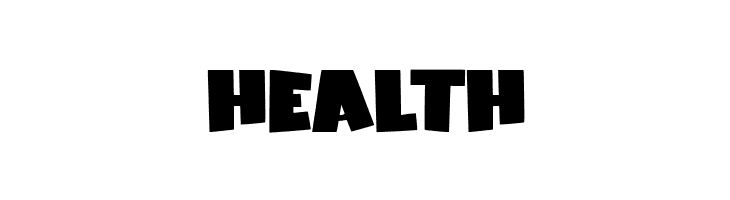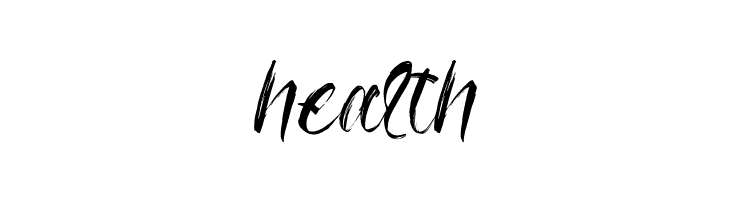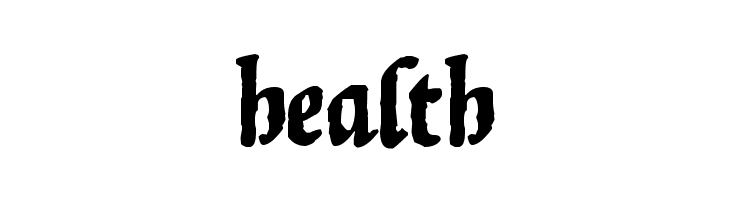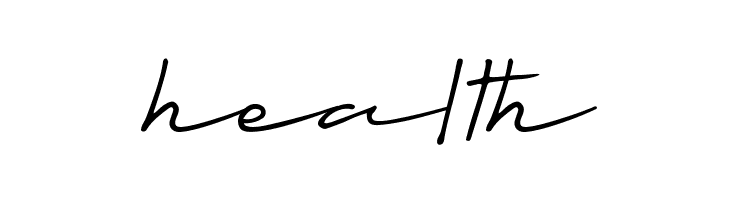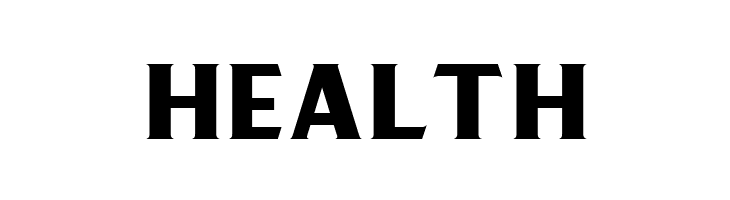
A bold, geometric font with uniform stroke widths and a modern edge.
A futuristic, geometric font with a dot-matrix style, ideal for modern and experimental designs.
A geometric, grid-based font with a modern, abstract style.
A bold, playful font with a cartoonish and dynamic style.
A bold, expressive handwritten font with dynamic strokes and fluidity.
A bold, decorative font with a medieval and ornate style.
A lively, cursive handwritten font with smooth, connected letters.
A cursive, handwritten-style font with elegant, flowing characters.
A bold, block-like font with subtle serifs and a vintage-modern aesthetic.
A bold, modern font with strong, impactful characters.